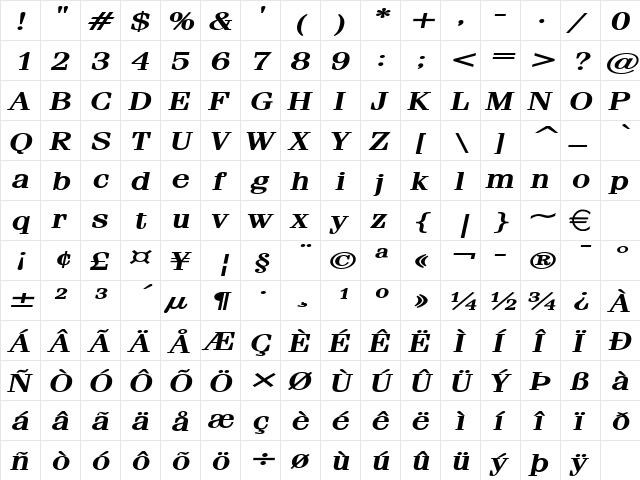
FelineExtended BoldItalic Font Preview
FelineExtended BoldItalic
Design Context for FelineExtended Typeface
FelineExtended is a composed and adaptable typeface that performs quietly and consistently across a wide range of design contexts. The dynamic lean of this cut emphasises speed and emphasis in any layout. The heavy weight commands attention and anchors typographic hierarchies.